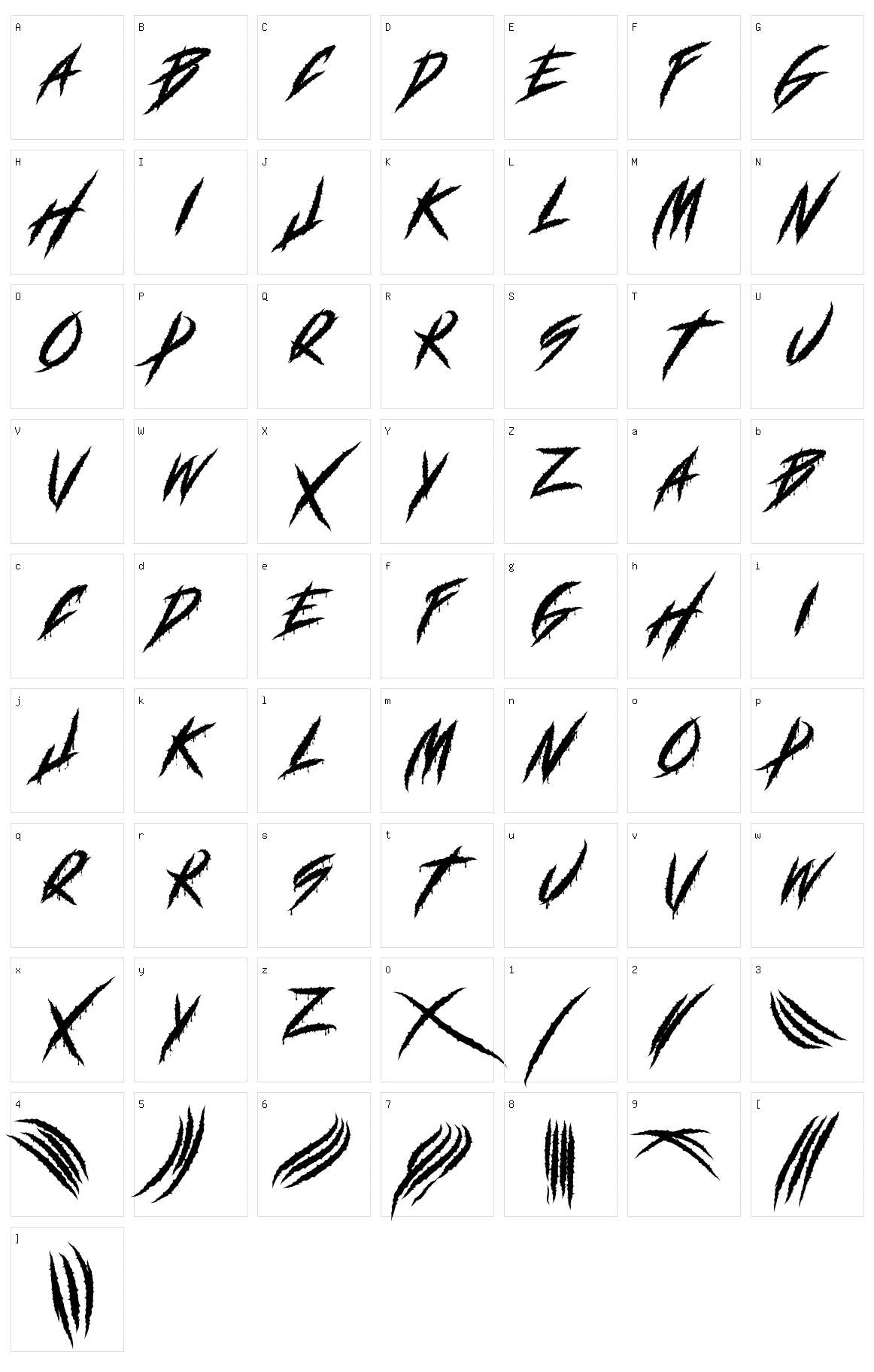
The free font Deadly Claws is carefully designed by CconceptLab, showcasing a thoughtful balance of creativity and usability and falls under the Horror font style. When you download the ZIP file, it contains only 118.71 KB of font files, making it lightweight and quick to download. Please review the license details below to understand permitted usage and distribution rights. If license information is not available, we recommend using this font for personal projects only or contacting the author directly for commercial usage permissions.